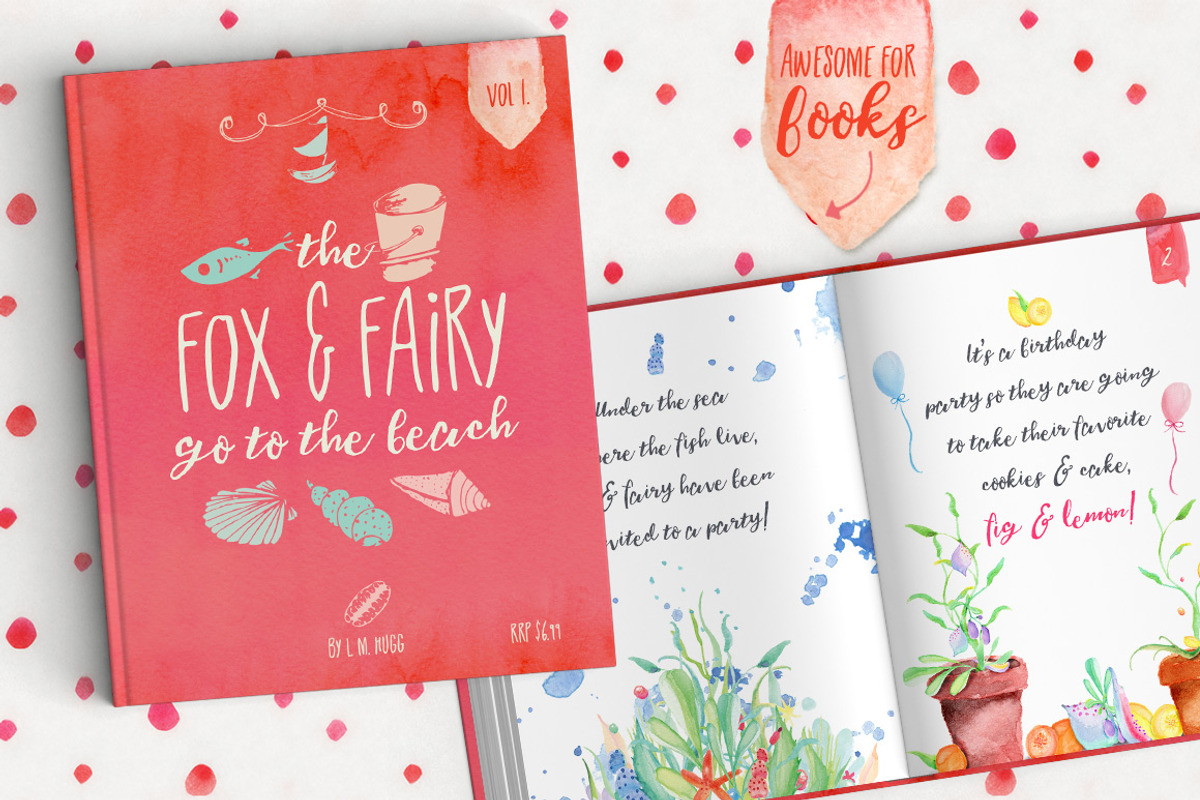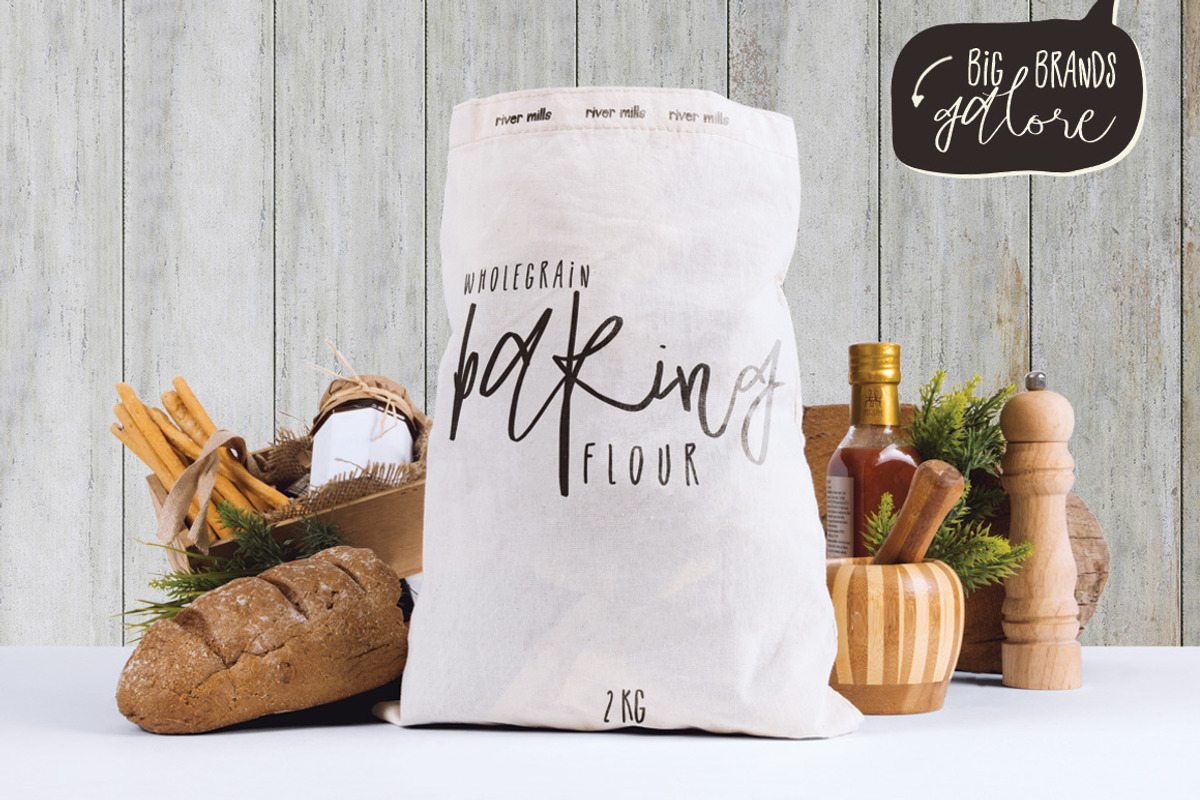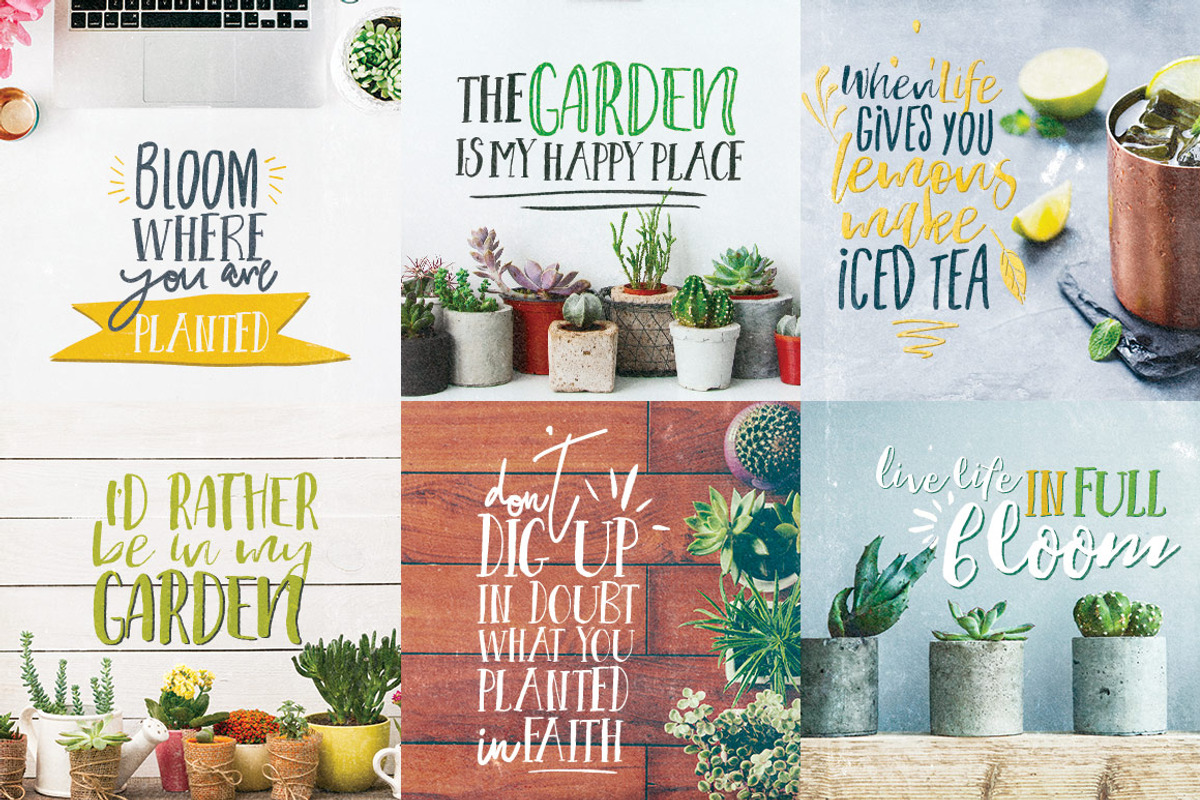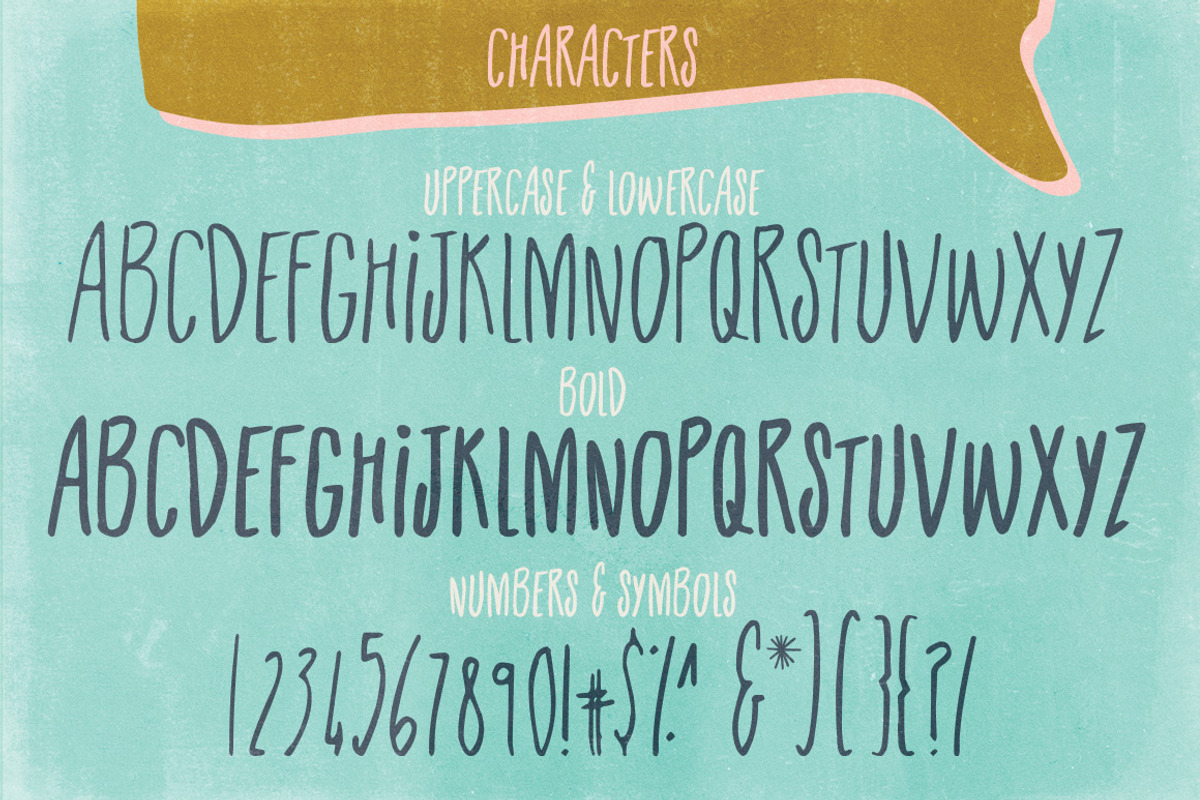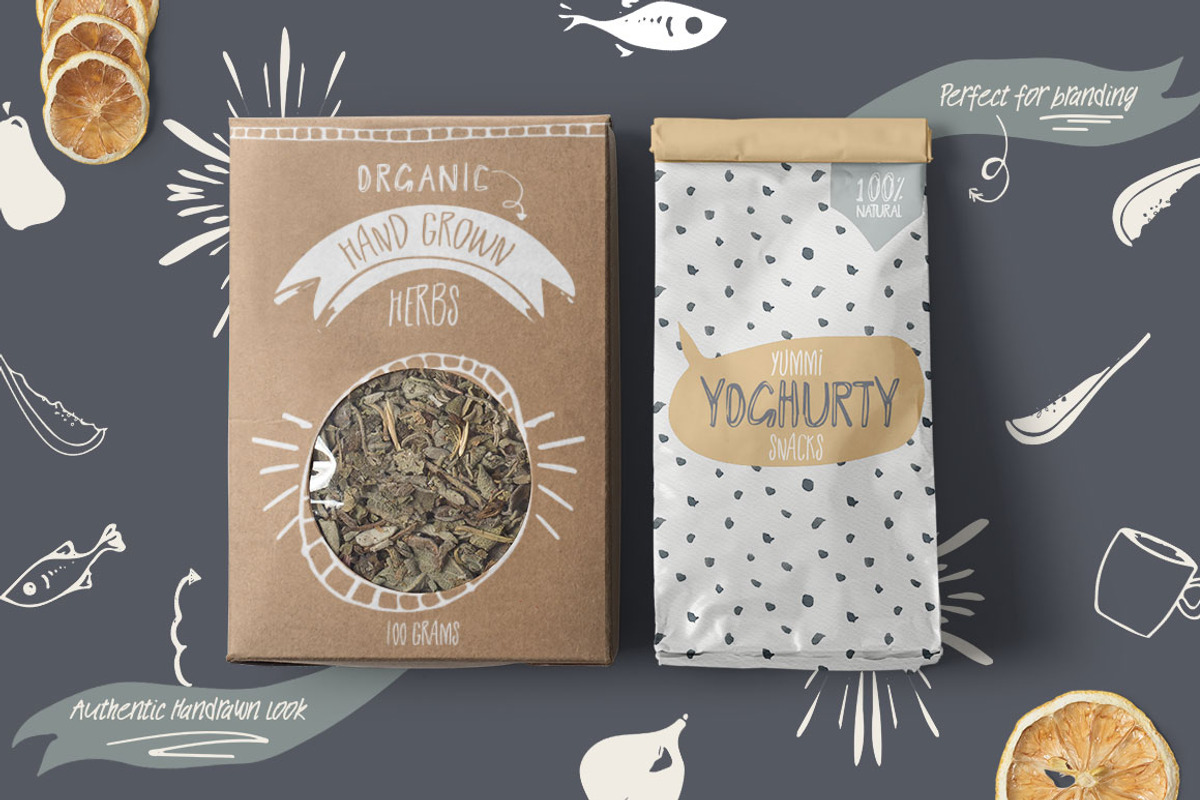
Listless Font Typeface
Listless Font Typeface by Creativeqube Design is a font selected for branding, posters, packaging, typography.
- Also included in the Bold version.
- Introducing Listless - a cool new font with some uppercase and some lowercase letters.
Why Listless Font Typeface is worth a look
Listless Font Typeface by Creativeqube Design fits naturally into Branding, posters, packaging, typography.